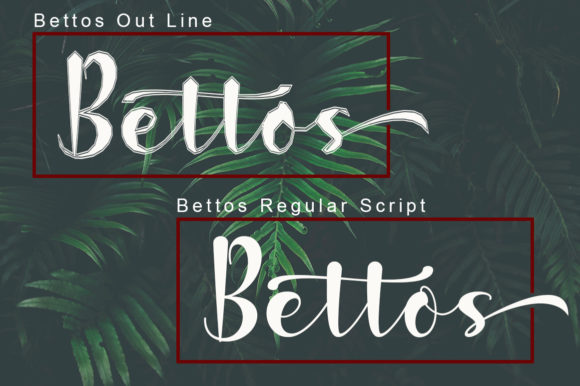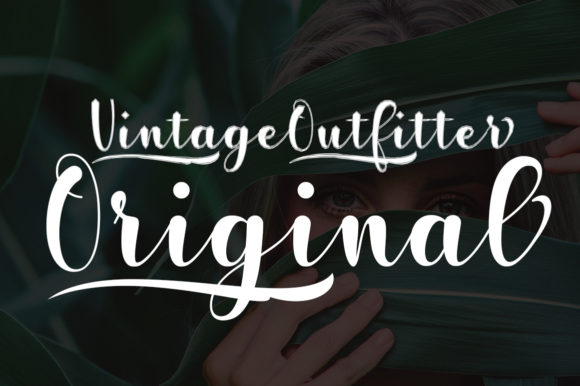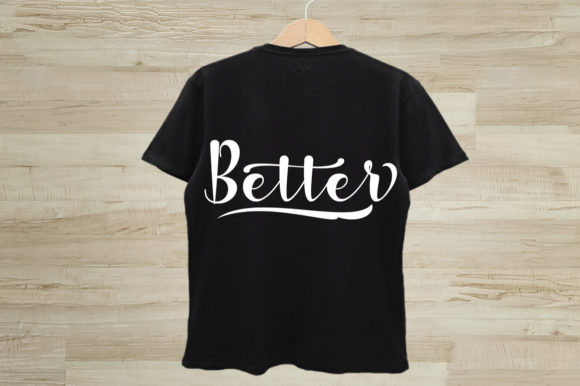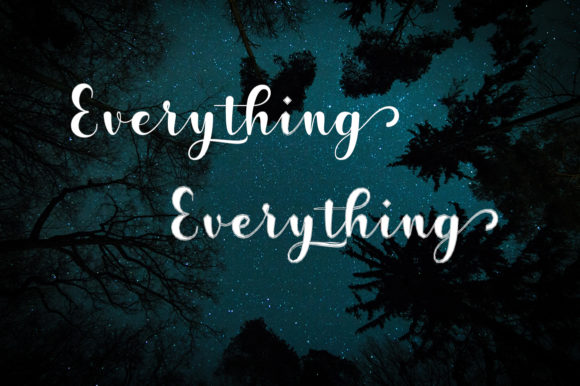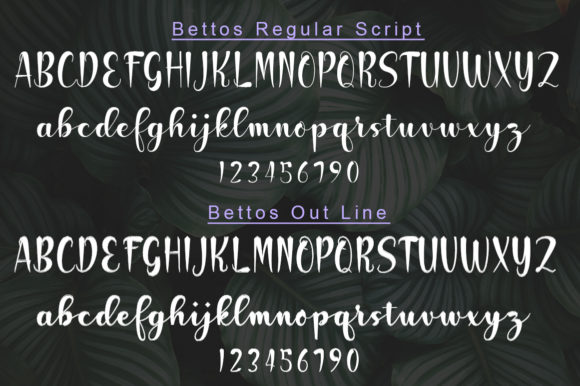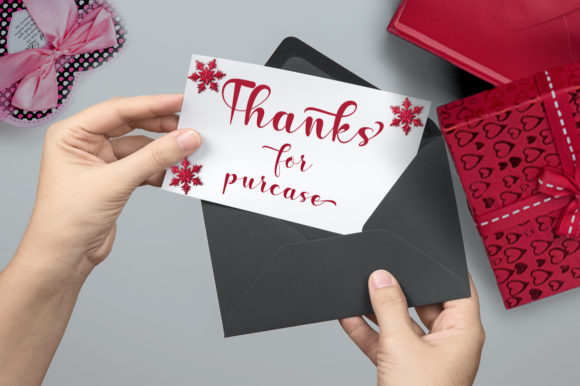
Bettos Font: Elevate Your Designs with Elegant Handwritten Script
Are you looking for a font that exudes elegance, sophistication, and a touch of classic charm? Look no further than Bettos Font, a beautiful handwritten script that is sure to elevate your designs to the next level. In this article, we’ll dive into the world of Bettos Font, exploring its features, uses, and benefits for designers and crafters.
What is Bettos Font?
Bettos Font is an elegant handwritten script that boasts amazing calligraphy with a varied base. This stunning font is characterized by its flowing lines, intricate details, and classic charm. Whether you’re looking to create a sophisticated logo, a beautiful wedding invitation, or a stylish label, Bettos Font is the perfect choice.
Key Features of Bettos Font
So, what makes Bettos Font so special? Here are some of its key features:
- Elegant and Classic Design: Bettos Font features an elegant and classic design that is perfect for creating sophisticated designs.
- Handwritten Script: This font is a beautiful handwritten script that adds a personal touch to any design.
- Varied Base: Bettos Font includes a varied base, which means that you can use it to create a wide range of designs, from simple to complex.
- Regular and Outlined Versions: This font comes in both regular and outlined versions, giving you flexibility and versatility in your designs.
Uses of Bettos Font
Bettos Font is a versatile font that can be used for a wide range of design projects, including:
- Signatures: Use Bettos Font to create beautiful signatures that add a personal touch to your documents.
- Logos: This font is perfect for creating elegant logos that reflect your brand’s personality.
- Wedding Invitations: Bettos Font is a popular choice for wedding invitations, adding a touch of classic romance to your special day.
- T-Shirts: Use this font to create stylish t-shirts that make a statement.
- Letterheads: Bettos Font is perfect for creating elegant letterheads that add a professional touch to your correspondence.
- Nameplates: This font is great for creating beautiful nameplates that add a personal touch to your gifts or products.
- Labels: Use Bettos Font to create stylish labels that add a touch of elegance to your products or packaging.
Benefits of Using Bettos Font
So, why should you choose Bettos Font for your design projects? Here are some benefits:
- Elegance and Sophistication: Bettos Font adds a touch of elegance and sophistication to any design.
- Flexibility: This font comes in both regular and outlined versions, giving you flexibility in your designs.
- Easy to Read: Bettos Font is easy to read, making it perfect for body text or headings.
- Unique and Creative: This font is unique and creative, allowing you to stand out from the crowd.
Tips for Using Bettos Font
Here are some tips for using Bettos Font in your design projects:
- Use it Sparingly: Use Bettos Font sparingly to add a touch of elegance to your designs.
- Pair it with Other Fonts: Pair Bettos Font with other fonts to create a unique and creative design.
In conclusion, Bettos Font is a beautiful handwritten script that is perfect for designers and crafters looking to add a touch of elegance and sophistication to their designs. With its elegant design, varied base, and regular and outlined versions, this font is versatile and easy to use. Whether you’re creating a logo, wedding invitation, or label, Bettos Font is the perfect choice.